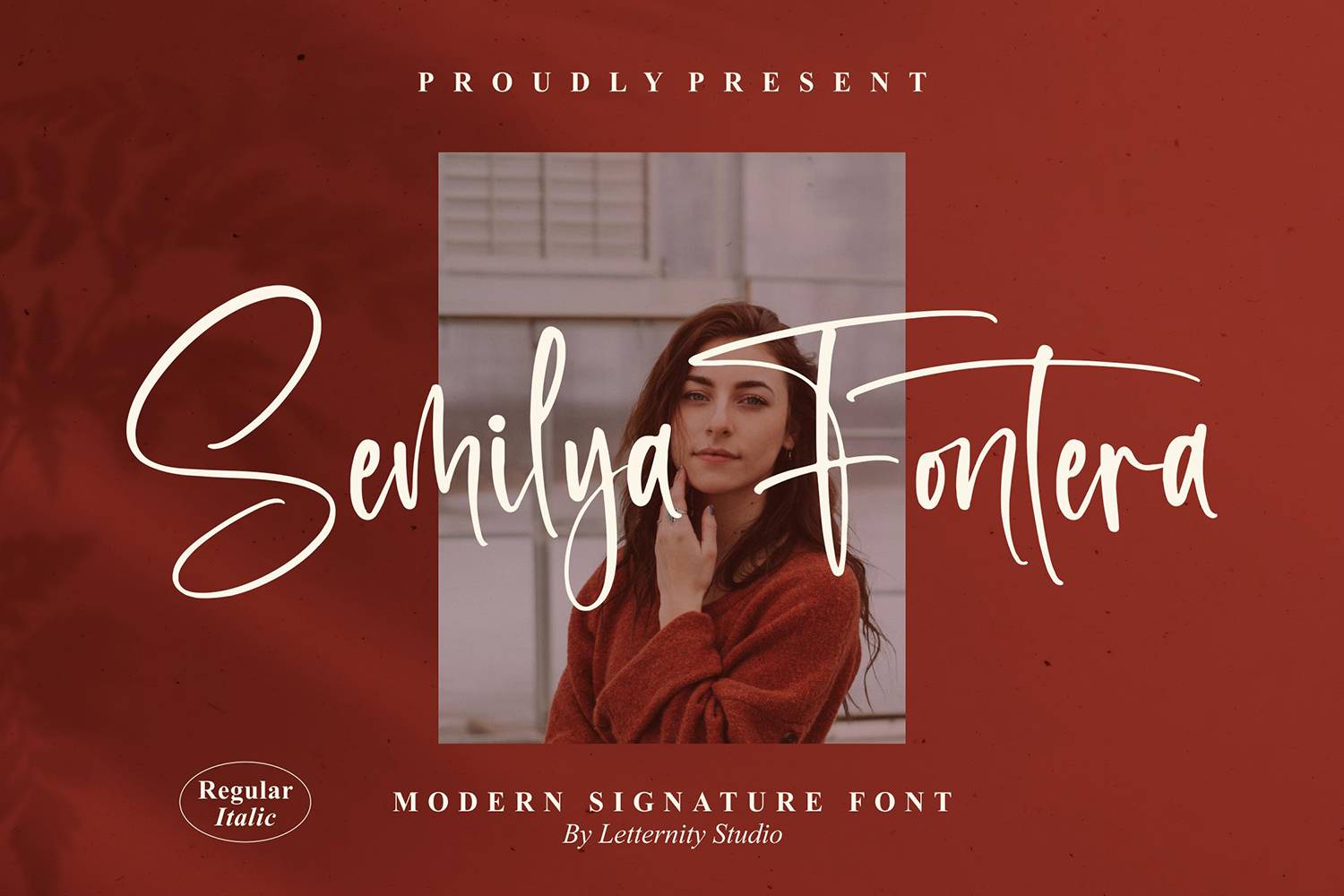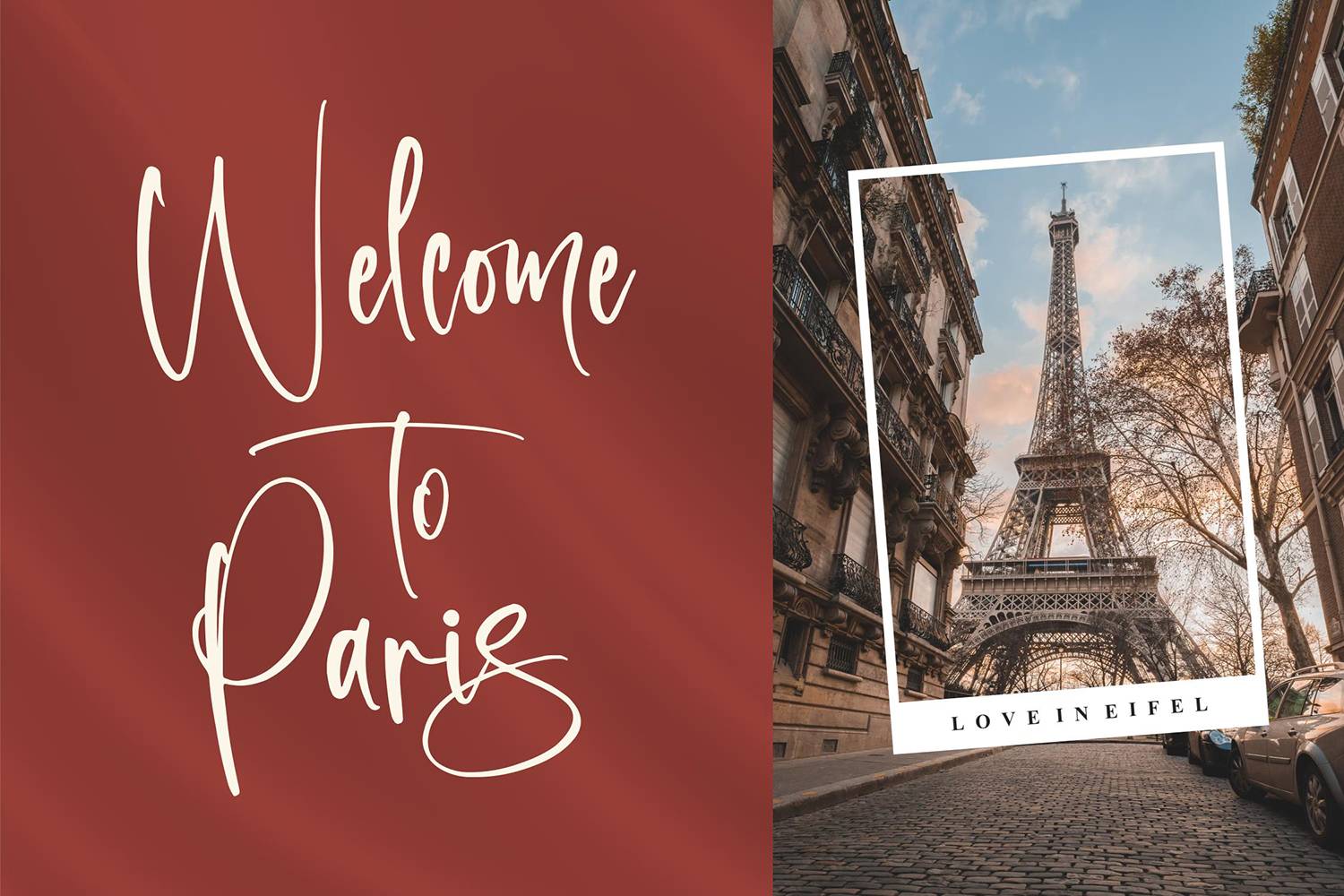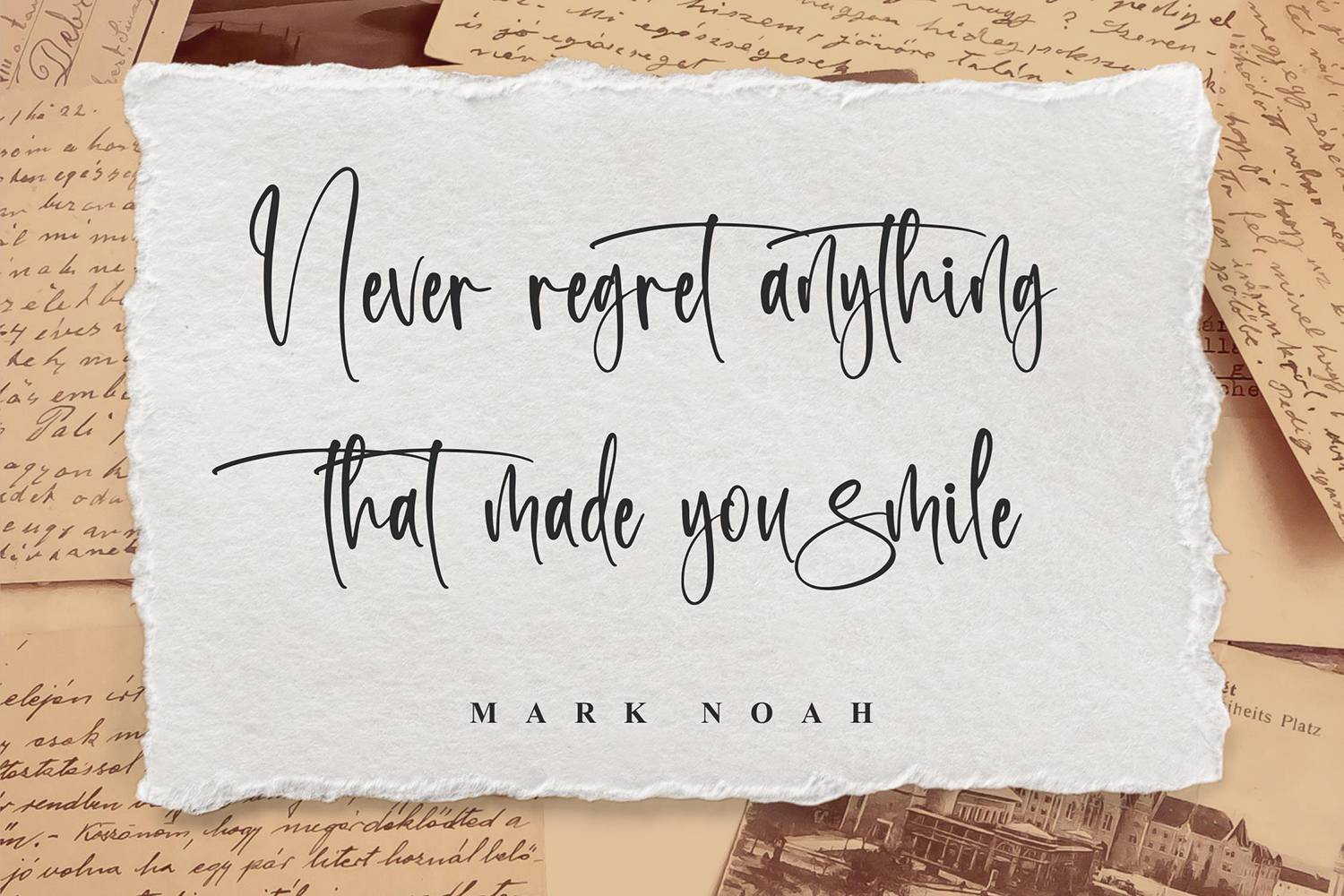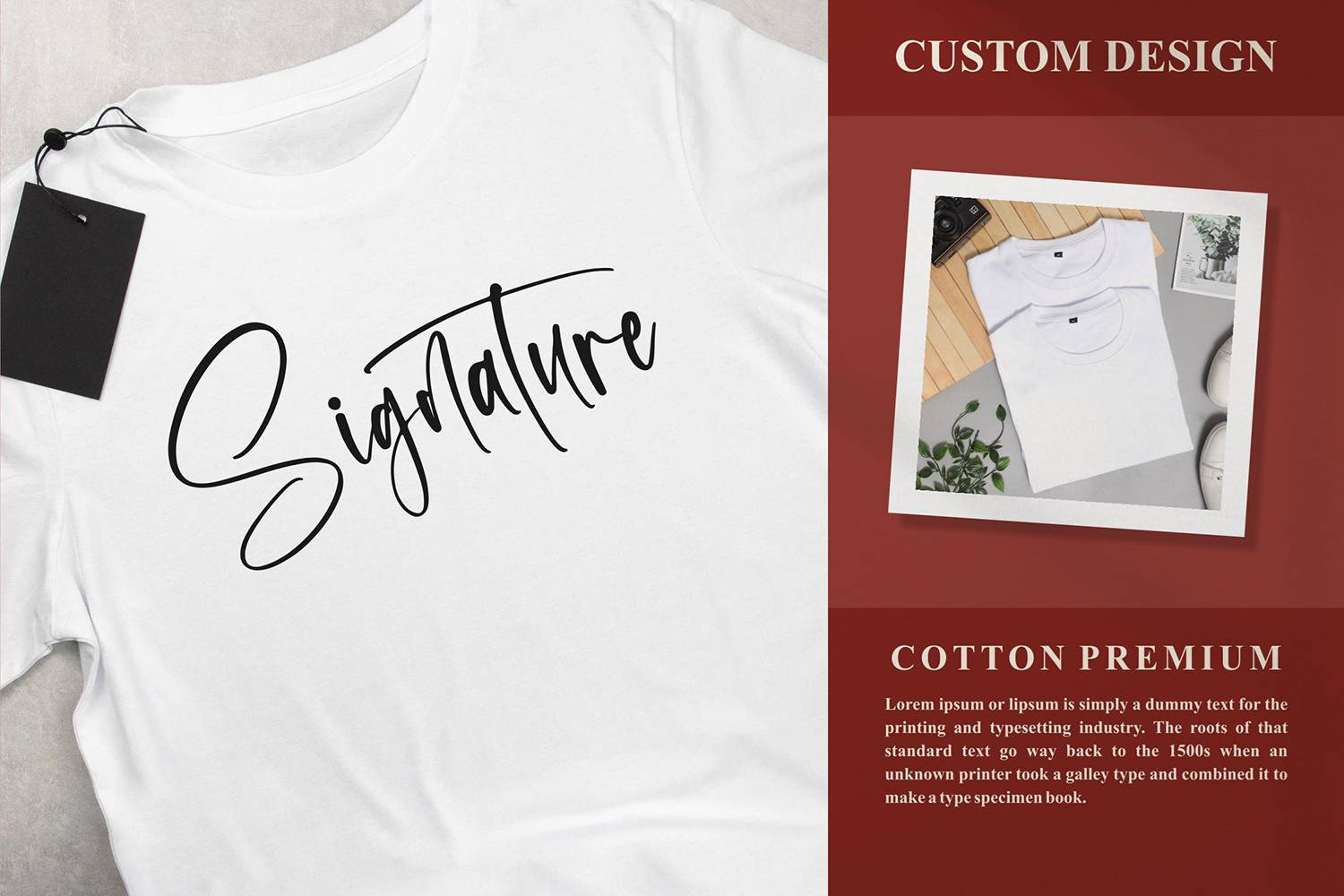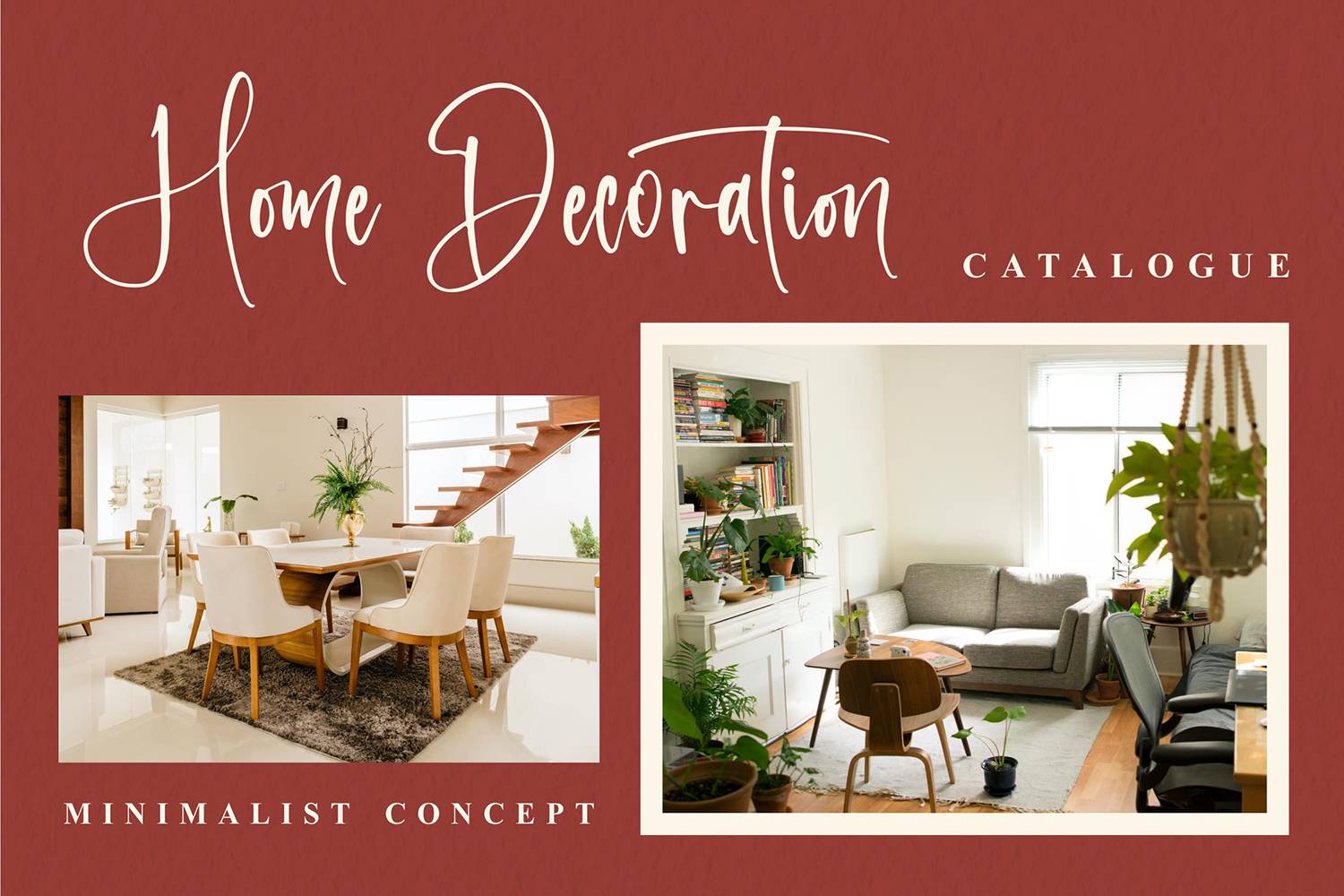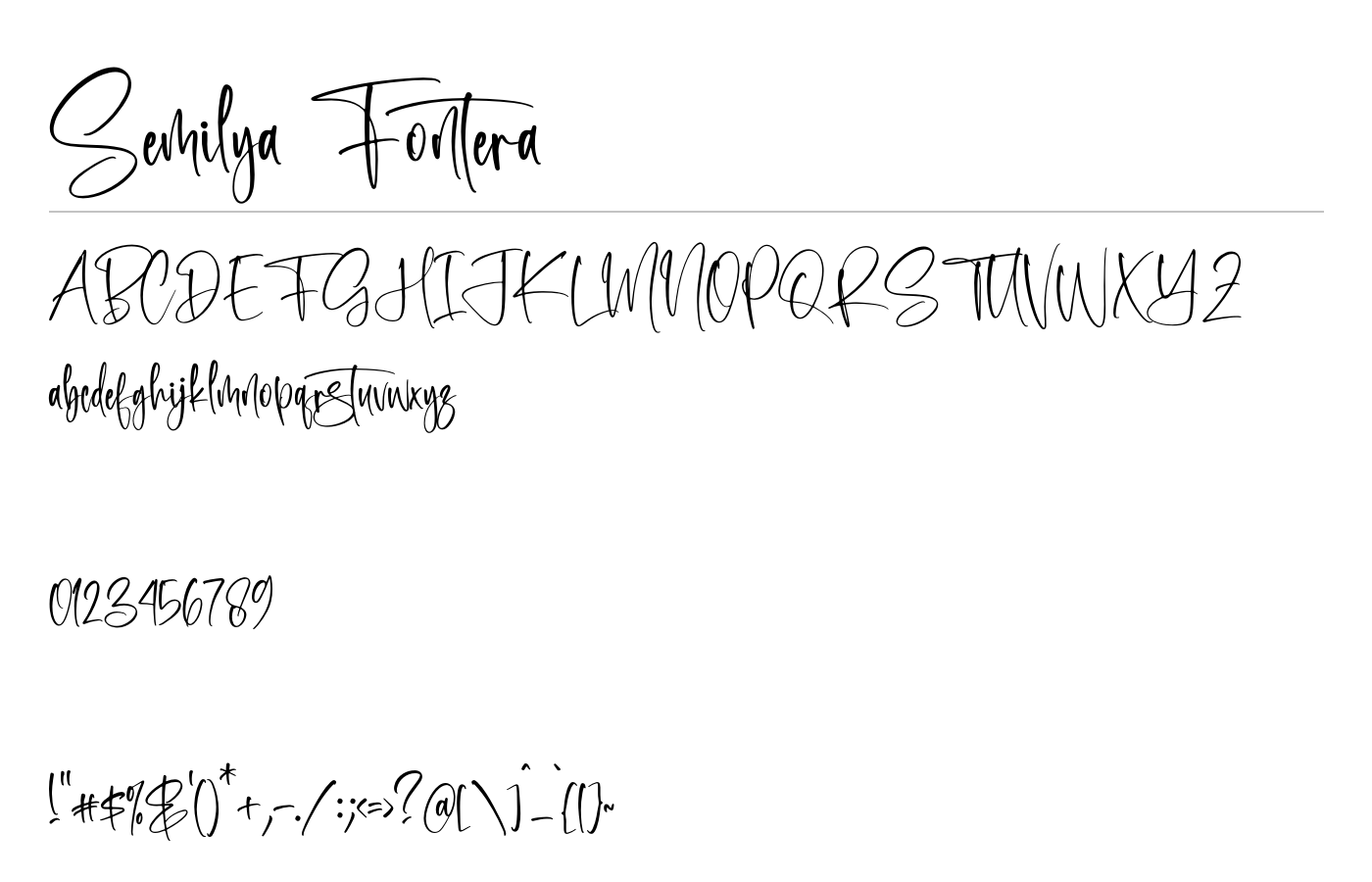
Semilya Fontera is a delicate, handwritten script font characterized by its thin, flowing strokes and a slightly erratic yet charming style. Its narrow, tall letterforms and playful irregularities add a casual, artistic vibe, making it ideal for creative branding, invitations, and fashion-related designs that seek a personal, expressive touch. This font works best where a distinctive, informal elegance is desired, bringing a unique, handcrafted feel to headlines and logos.